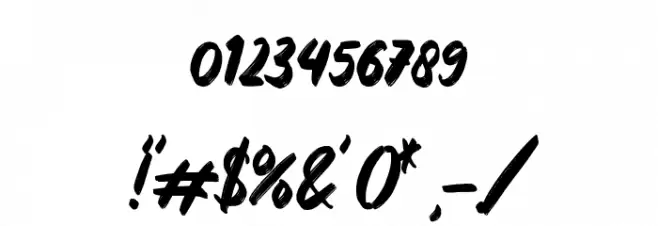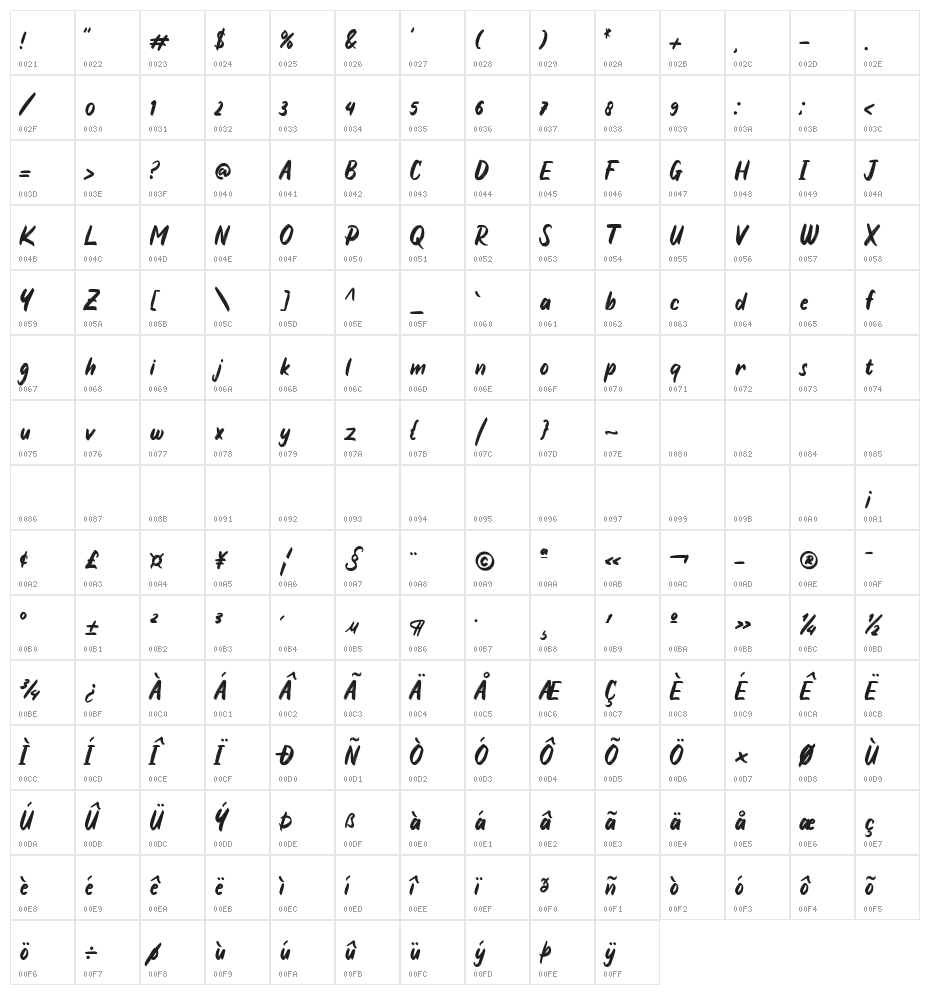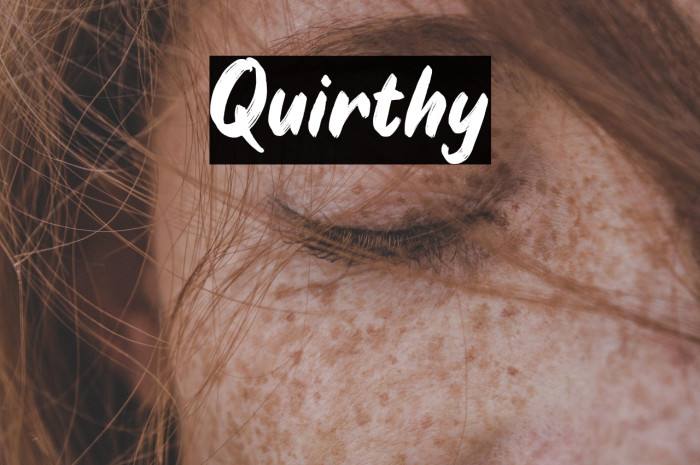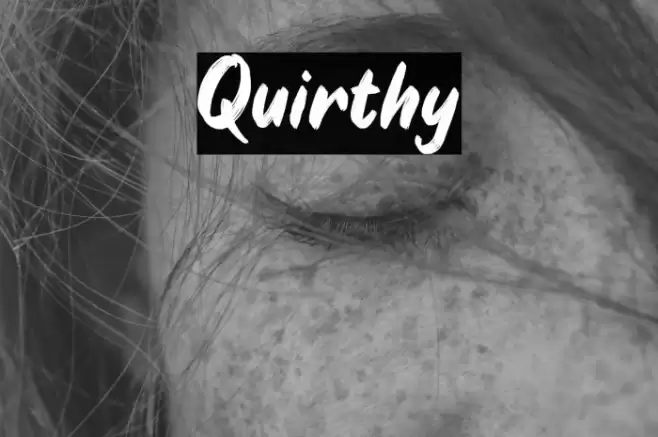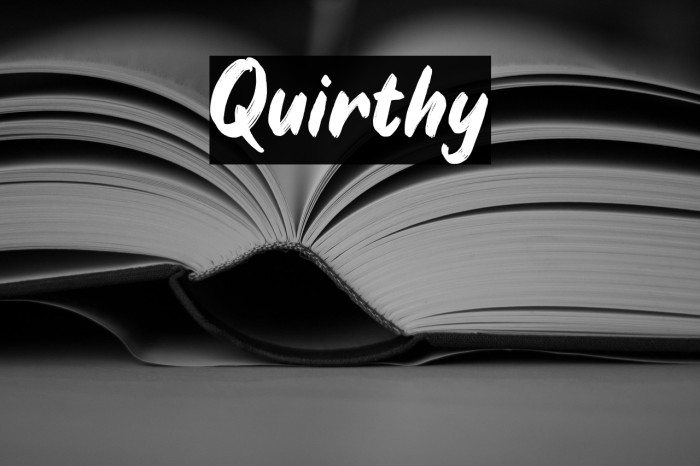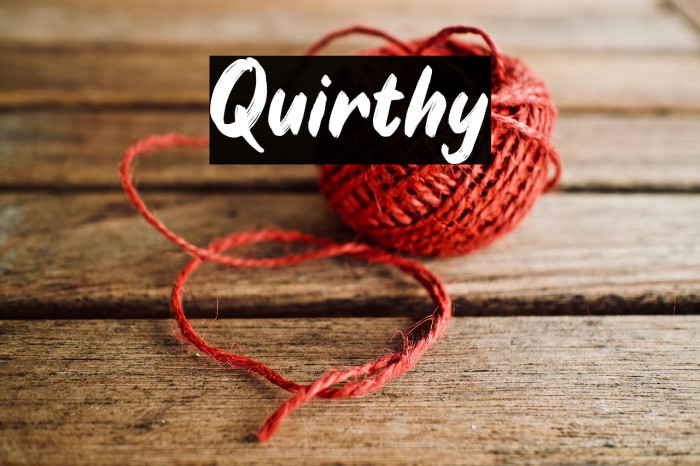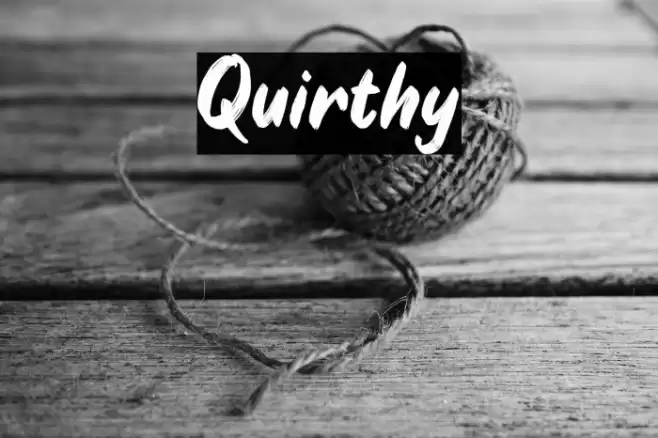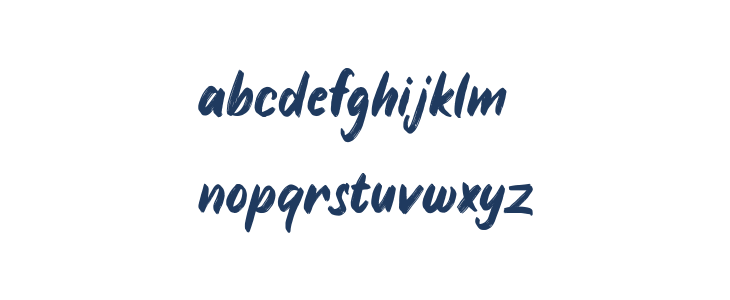
Quirthy Font
Quirthy Description
This font features a bold and expressive handwritten style, characterized by its dynamic brush strokes and fluid movement. The letters have a natural, organic feel, with varying thickness that adds a sense of rhythm and energy. The uppercase characters are bold and impactful, while the lowercase letters maintain a consistent flow, making it versatile for various design needs. The numerals and special characters complement the overall style, maintaining the same energetic brushstroke quality. This font is ideal for projects that require a personal touch or a creative flair.
| Proposed Projects | Ideal for branding, logos, posters, invitations, and social media graphics. |